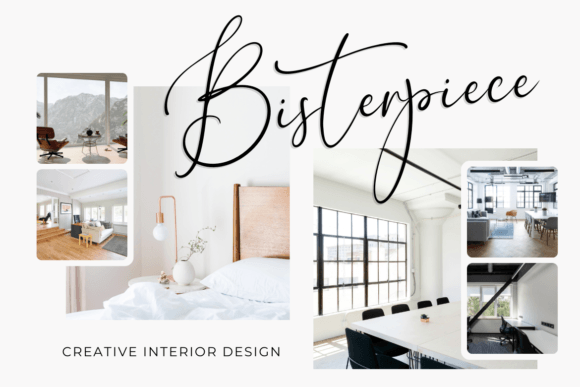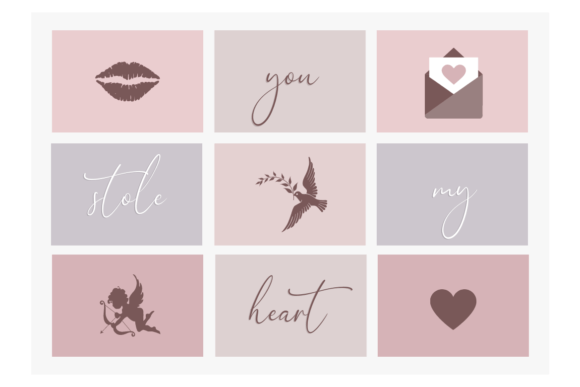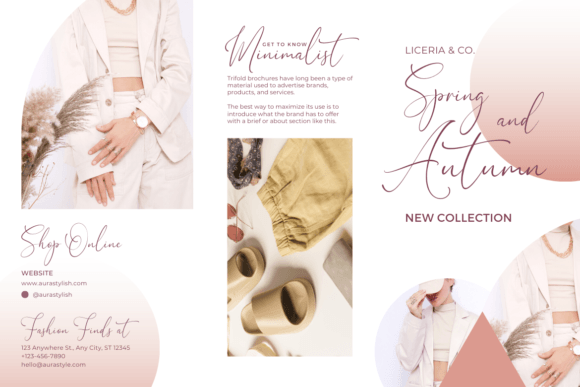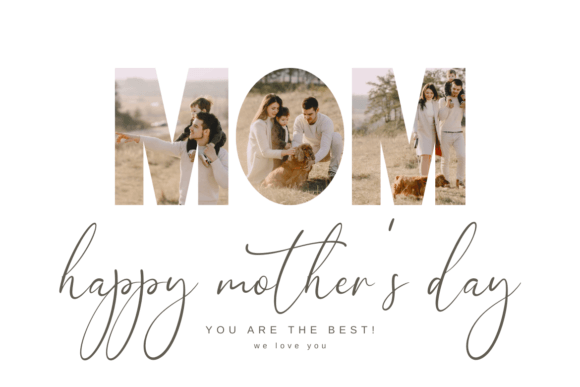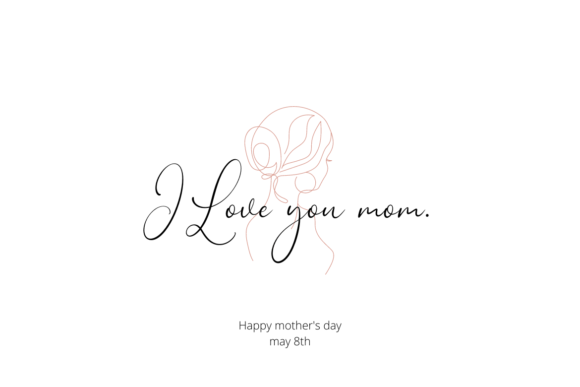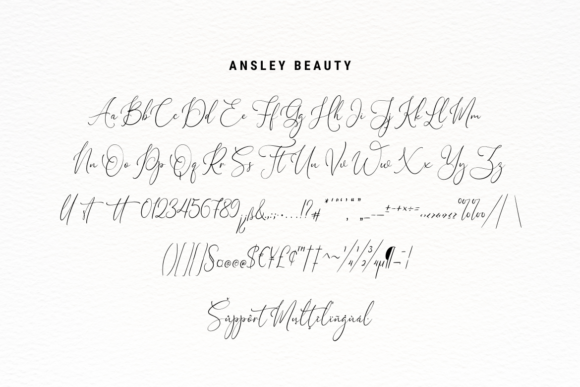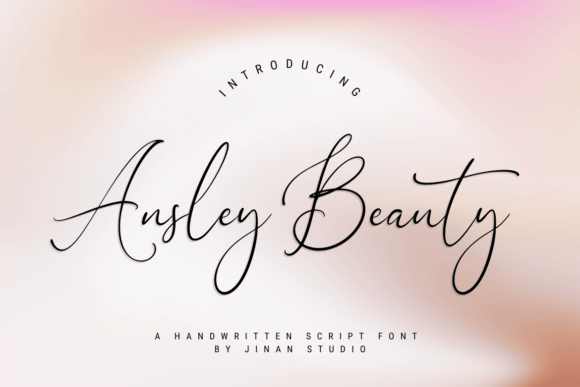
Introducing Ansley Beauty Font: The Perfect Addition to Your Design Projects
Are you a designer or crafter looking for a font that can add a touch of elegance and romance to your projects? Look no further than Ansley Beauty Font. This lovely, stylish, and greatly detailed handwritten font is perfect for a variety of design projects, from Valentine’s theme designs to wedding invitations, photography, logos, and more.
What Makes Ansley Beauty Font So Special?
Ansley Beauty Font is a unique and beautiful font that is sure to capture the hearts of designers and crafters alike. Its elegant and flowing script is perfect for creating romantic and sophisticated designs that will leave a lasting impression. Whether you’re creating a Valentine’s Day card, a wedding invitation, or a logo for a new business, Ansley Beauty Font is the perfect choice.
Features of Ansley Beauty Font
- Lovely and Stylish Design: Ansley Beauty Font features a beautiful, handwritten design that is both elegant and stylish.
- Greatly Detailed: The font is greatly detailed, making it perfect for use in a variety of design projects, from small icons to large banners.
- Romantic Touch: Ansley Beauty Font is guaranteed to add a romantic touch to each of your creations, making it perfect for Valentine’s theme designs, wedding invitations, and more.
- Versatile: This font is versatile and can be used in a variety of design projects, including logos, photography, and more.
Ansley Beauty Font is perfect for designers and crafters who are looking for a font that can add a touch of elegance and sophistication to their projects. Whether you’re creating digital designs or physical products, this font is sure to impress. Its beautiful and flowing script is perfect for creating romantic and sophisticated designs that will leave a lasting impression.
Benefits of Using Ansley Beauty Font
- Adds a Touch of Elegance: Ansley Beauty Font adds a touch of elegance and sophistication to any design project.
- Increases Versatility: This font is versatile and can be used in a variety of design projects, making it a great addition to any design library.
- Perfect for Romantic Designs: This font is perfect for creating romantic and sophisticated designs, making it a great choice for Valentine’s theme designs, wedding invitations, and more.
Ansley Beauty Font is a beautiful and elegant font that is perfect for designers and crafters who are looking for a font that can add a touch of romance and sophistication to their projects. Its lovely and stylish design, greatly detailed features, and romantic touch make it a great addition to any design library. Whether you’re creating digital designs or physical products, Ansley Beauty Font is sure to impress.